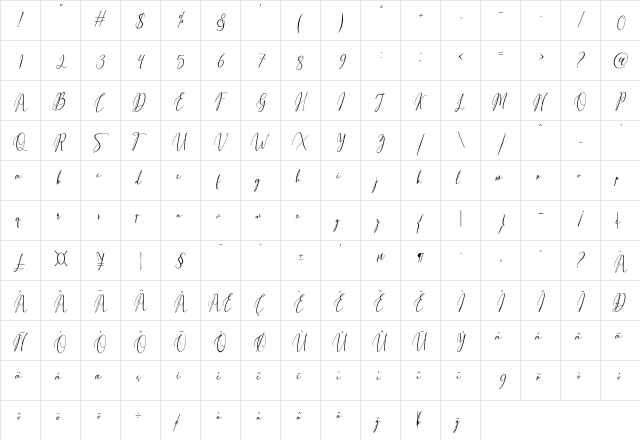
Fiolenita Script Regular
| Foundry | Mightype |
| Designer | Munawir |
Design Context for Fiolenita Script Typeface
Fiolenita Script brings a calligraphic fluidity to the page — its connecting strokes and expressive curves give it an unmistakably human quality.
Font Pairing: Combine Fiolenita Script with a simple geometric sans for maximum contrast — the tension between flowing curves and clean structure is a classic typographic pairing.
Pro Tip: Pair Fiolenita Script with a clean sans-serif for supporting text. The contrast between fluid script and geometric structure creates an elegant typographic hierarchy.